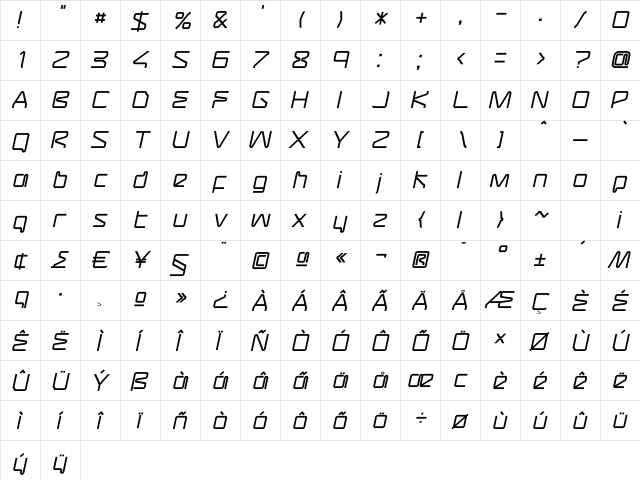
AssemblerOblique Regular
Design Context for AssemblerOblique Typeface
AssemblerOblique offers clean, dependable letterforms without strong stylistic allegiance, making it a practical choice for designers who need flexibility. The slanted form adds forward momentum and visual energy.